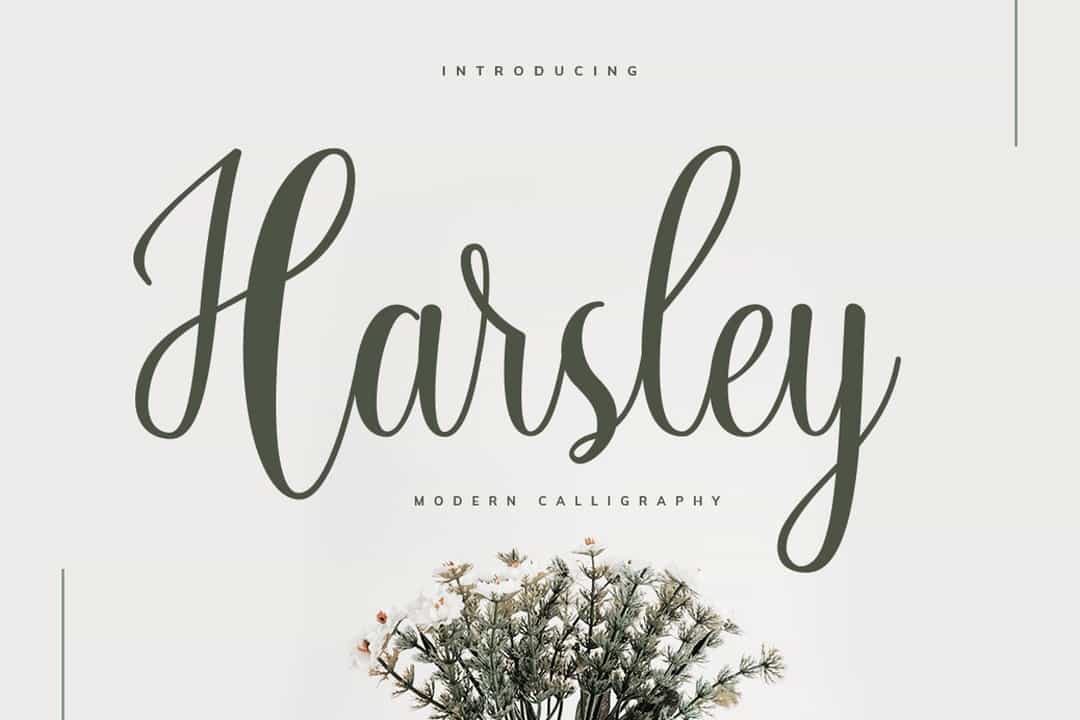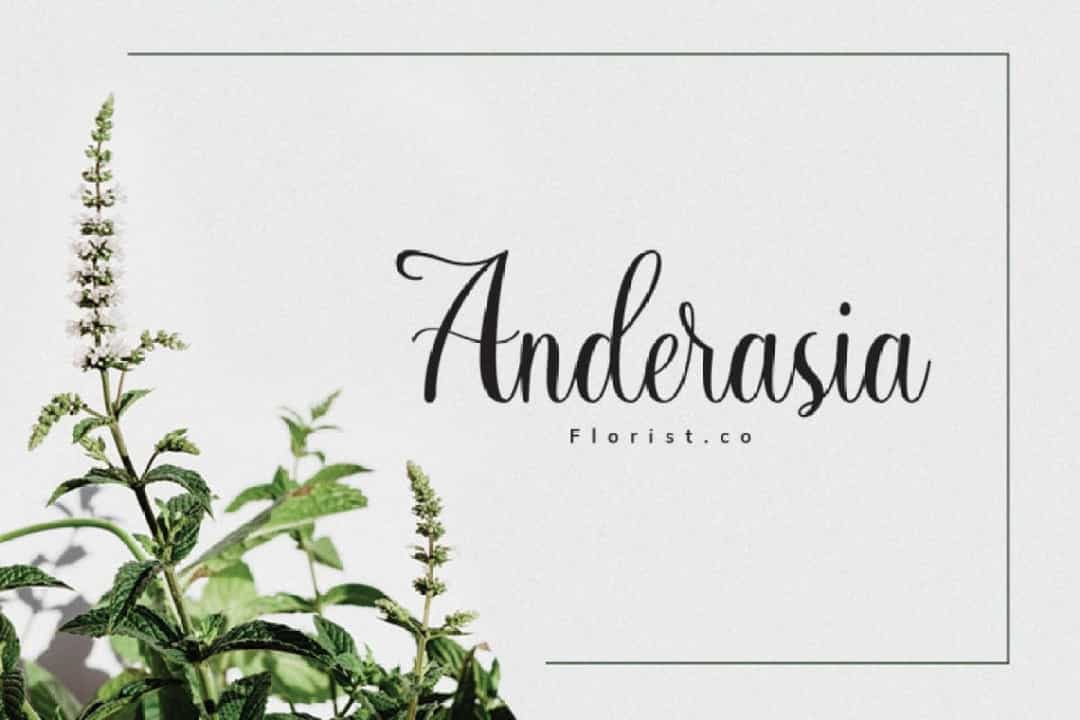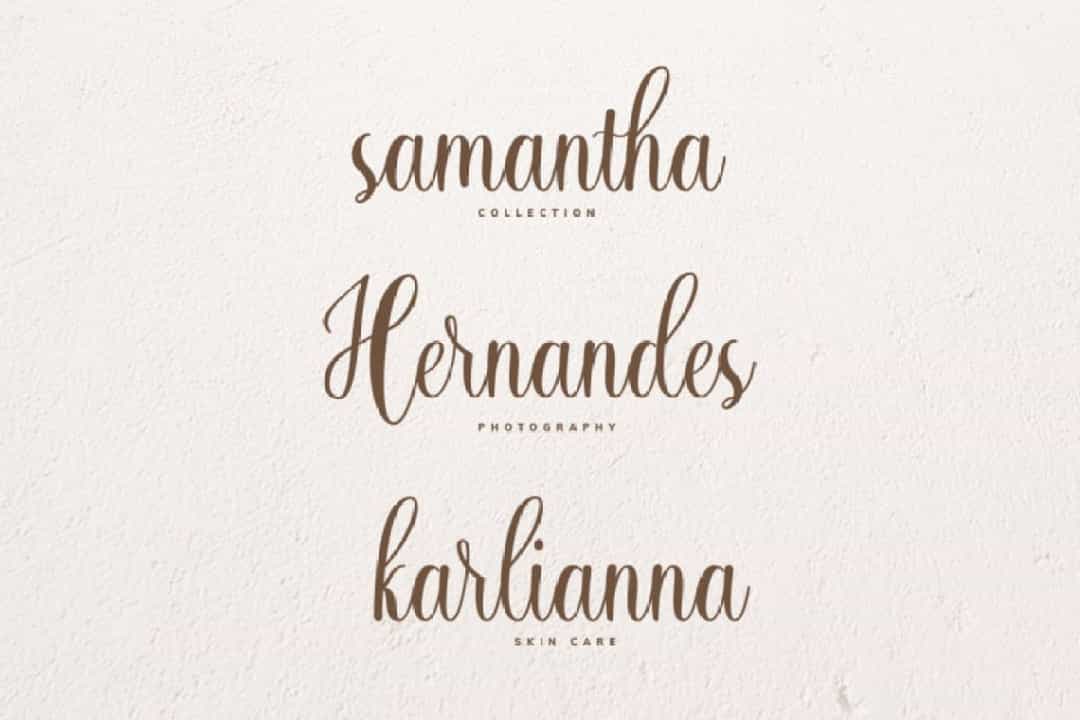
Harsley is a classy and graceful font with a fashionable and warm design suitable for fashion lovers, and stylish ladies. Fashionable and feminine. Harsley will be perfect for weddings, for thank you cards, for greeting cards, for quotes, for business cards, for logos and logo design for celebrations like graduation or birthday parties.